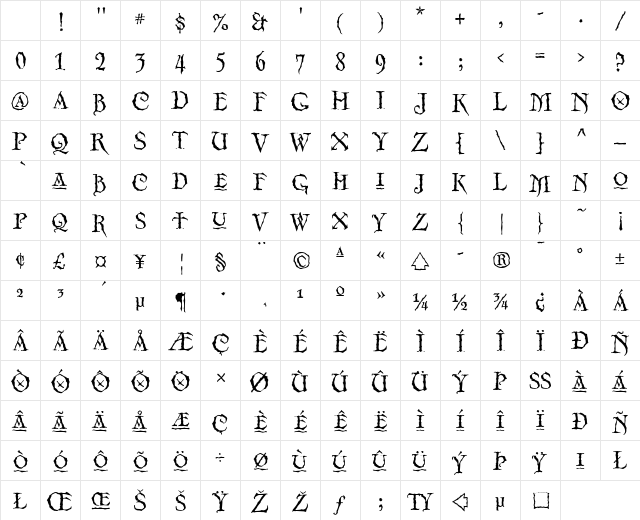
Complete Merlin Regular glyph index. Displaying only characters natively supported by Merlin Regular font.
Merlin is a composed and adaptable typeface that performs quietly and consistently across a wide range of design contexts.